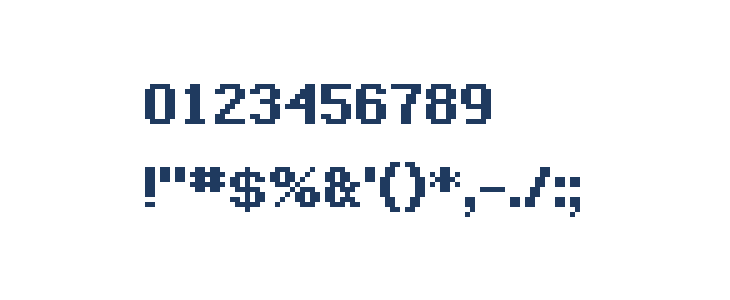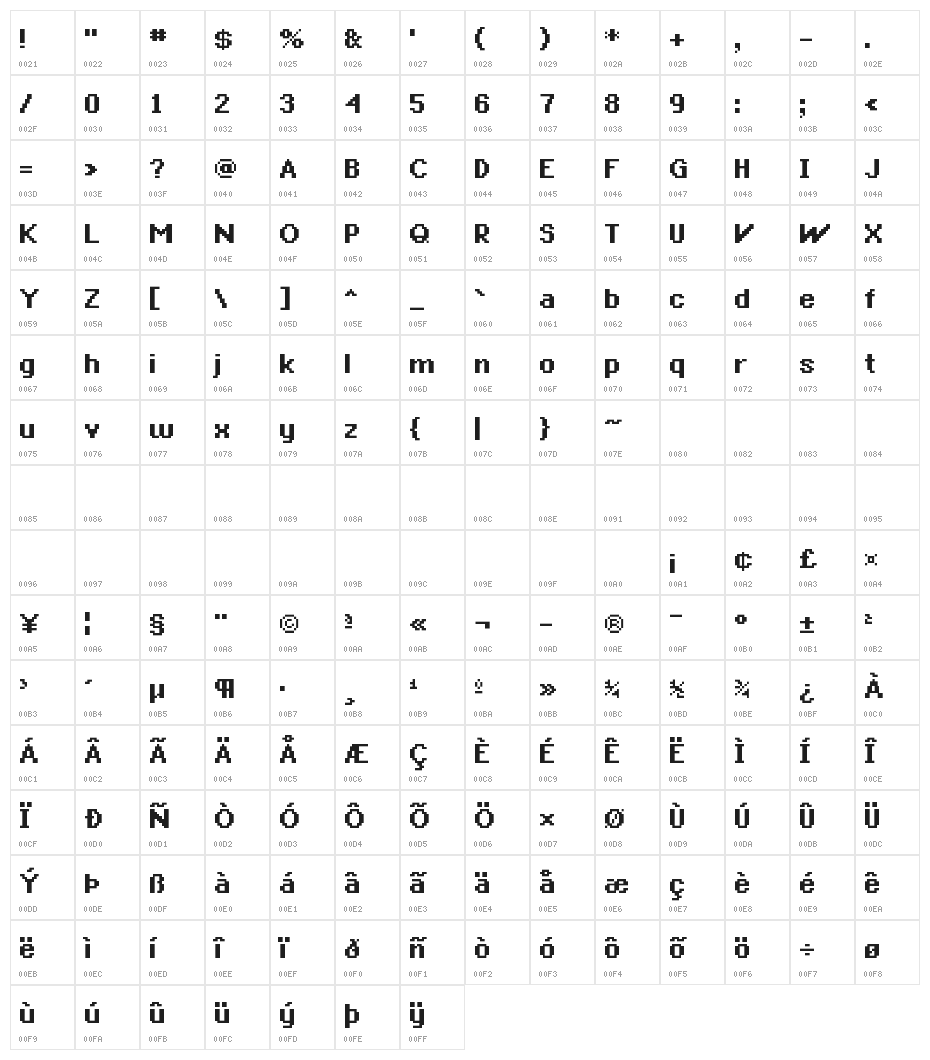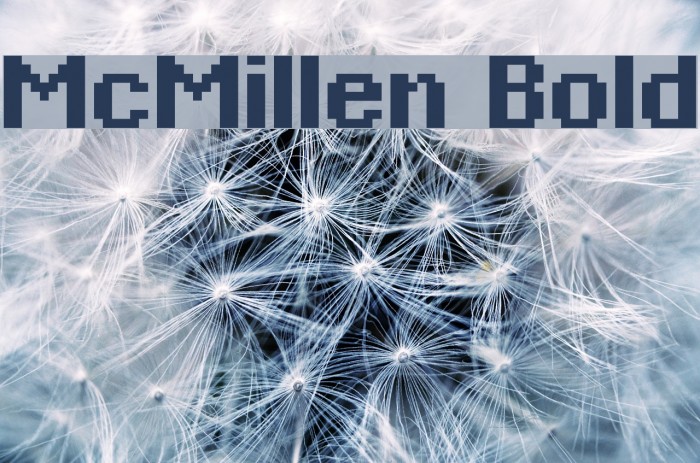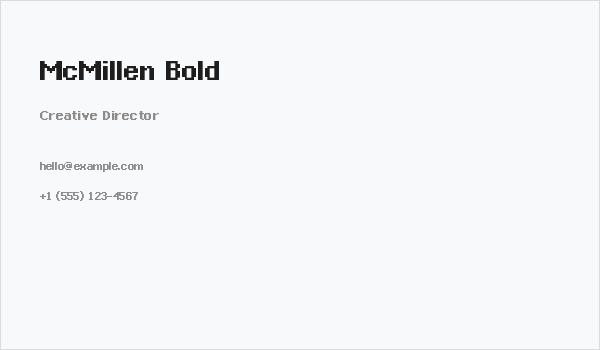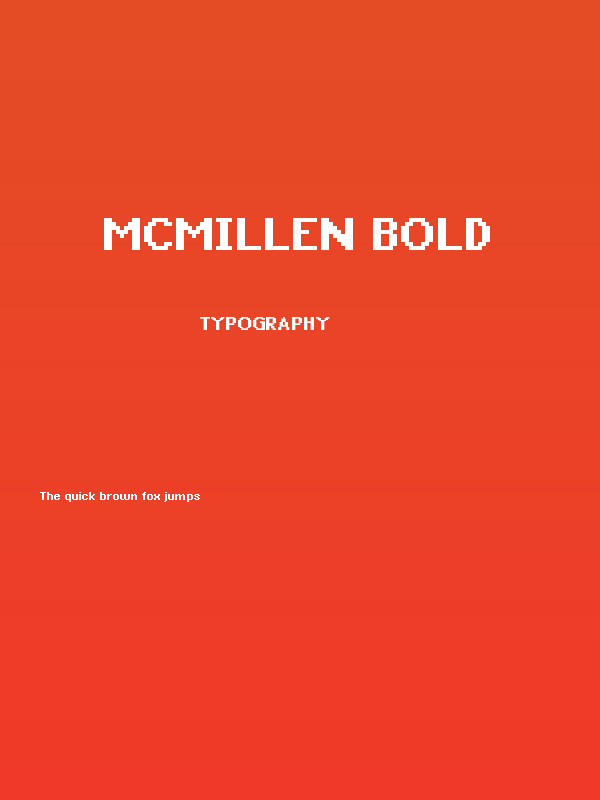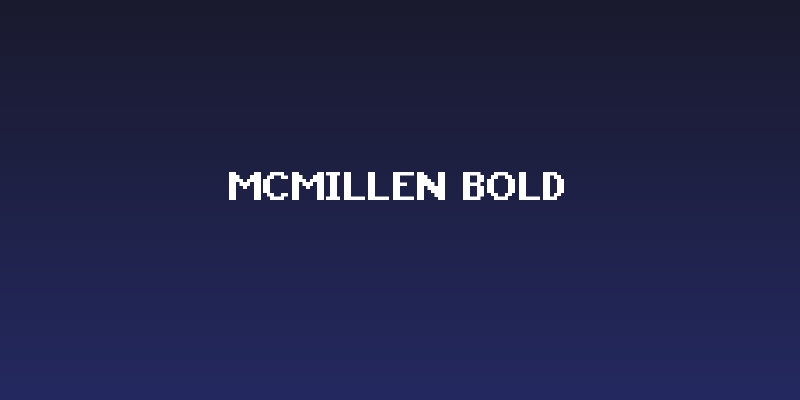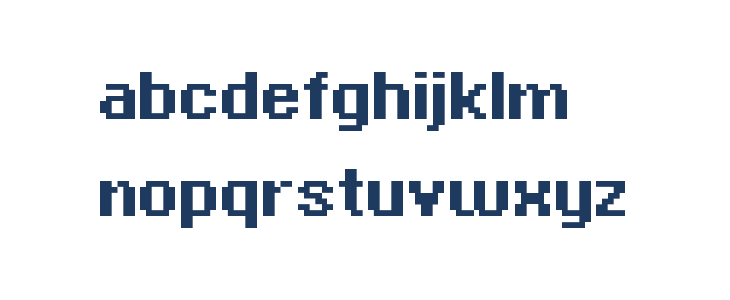
McMillen Bold Font
McMillen Bold Description
This font features a bold, pixelated style reminiscent of early digital or video game typography. The characters are blocky and geometric, with consistent stroke widths that give it a uniform appearance. The uppercase and lowercase letters maintain a similar width, creating a cohesive look across different text sizes. The numerals and special characters follow the same design principles, ensuring readability and a distinctive aesthetic. This font is ideal for projects that require a retro or tech-inspired feel, offering a nostalgic nod to classic arcade games.
| Proposed Projects | Perfect for video game design, retro-themed posters, digital art, and tech-related branding. |